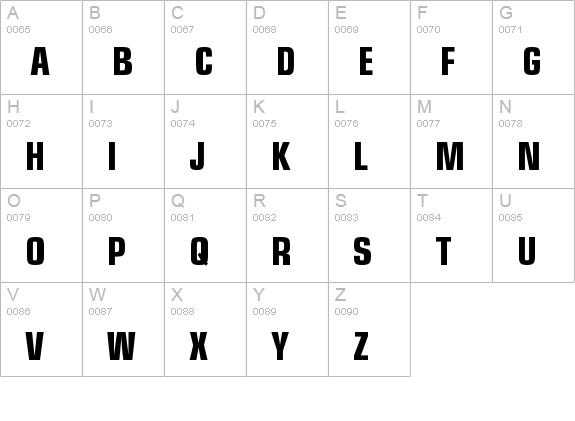
EurasiaCd-Bold Font Details
EurasiaCd-Bold is a strong, high-contrast variant in the EurasiaCd typeface family \xE2\x80\x94 well suited to headlines, attention-grabbing titles, and strong calls-to-action.
EurasiaCd-Bold is an elegant and modern font that exudes sophistication and style. With its bold and striking design, this font is perfect for creating attention-grabbing headlines, posters, and branding materials. The clean lines and balanced proportions make EurasiaCd-Bold a versatile choice for both print and digital projects. What sets EurasiaCd-Bold apart is that it is available for free download at FontsMarket.com. This means you can easily access and use this high-quality font in your designs without any cost. Whether you are a designer looking to add a touch of sophistication to your projects or a business owner seeking a professional font for your branding, EurasiaCd-Bold is the perfect choice. Download it now and elevate your designs with this stunning typeface.